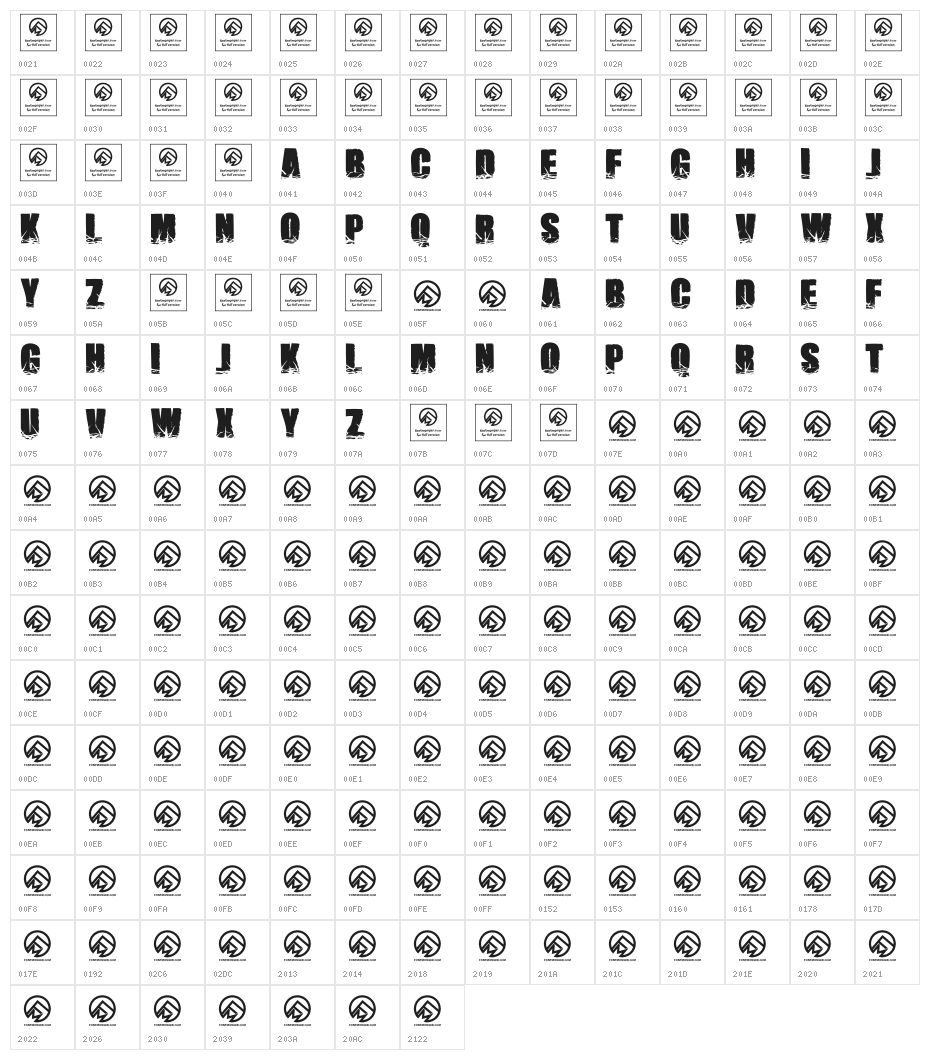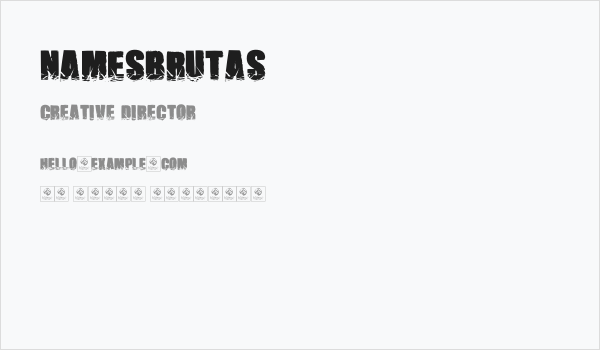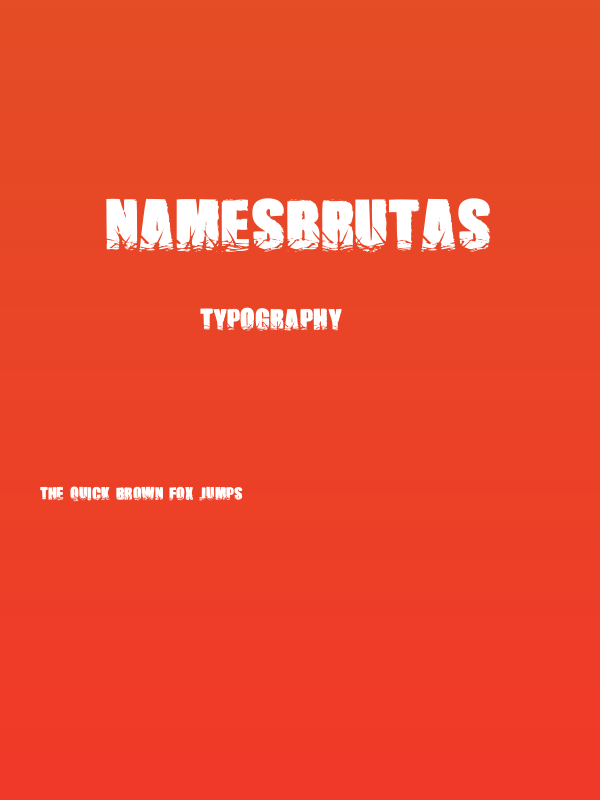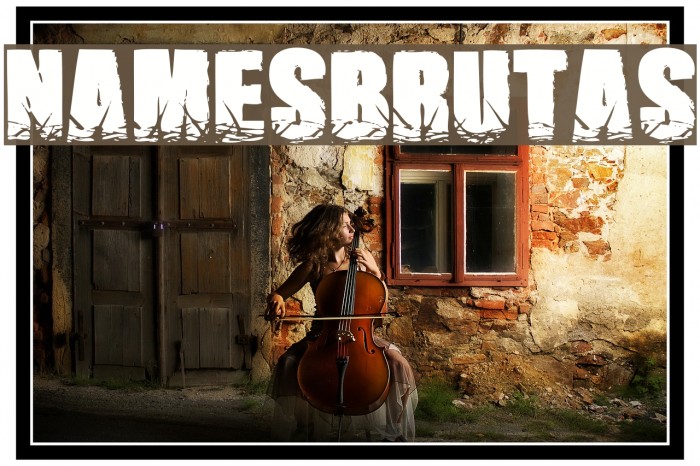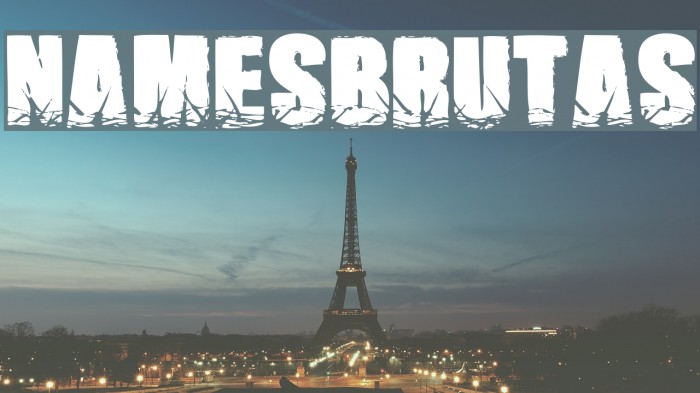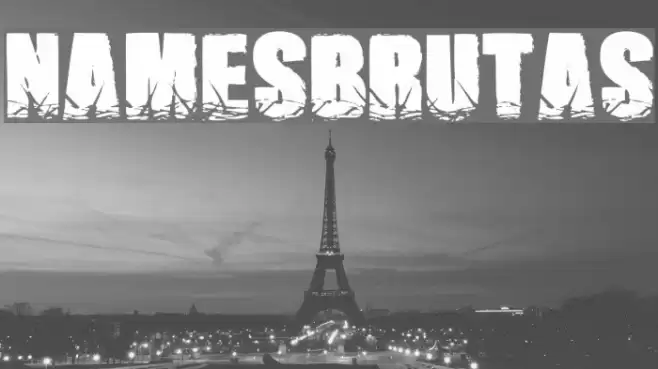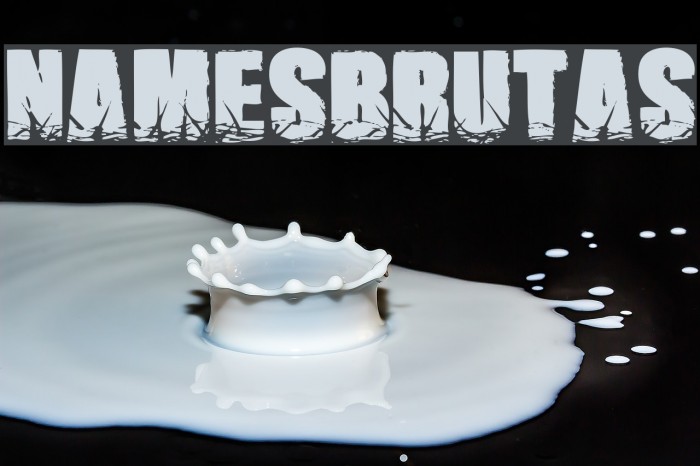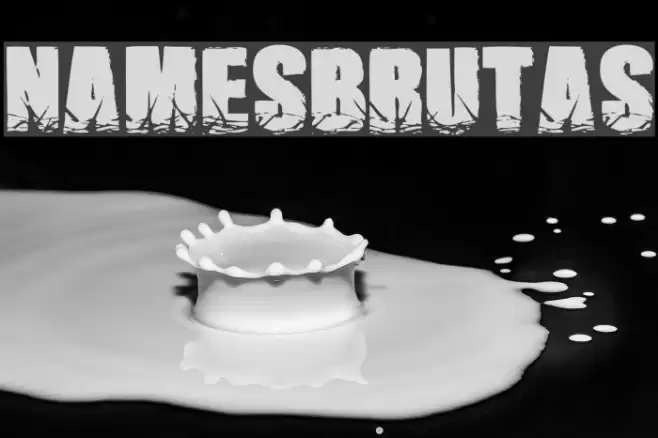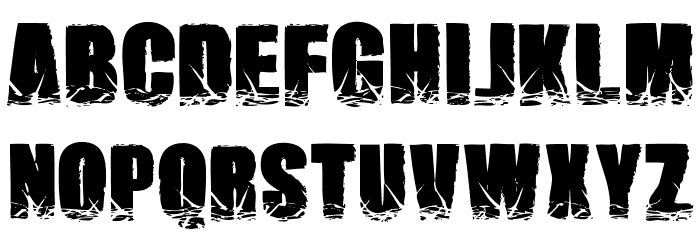
NamesBrutas Font
NamesBrutas Description
This font features a bold and rugged style with a distressed appearance, giving it a raw and edgy look. The characters are heavily textured, resembling a worn or scratched surface, which adds a sense of depth and dimension. The uppercase letters are prominent and impactful, making them ideal for grabbing attention. The overall design conveys a sense of strength and intensity, suitable for projects that require a bold statement. The font's unique style makes it stand out, perfect for creative and unconventional designs.
| Proposed Projects | Ideal for posters, album covers, branding for extreme sports, or any project needing a bold, edgy look. |